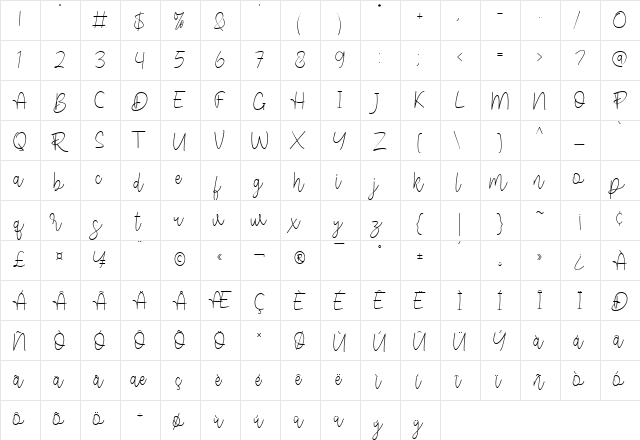
Veronica Regular
| Foundry | Rometheme Studio |
| Designer | Rometheme Studio |
Design Context for Veronica Typeface
Veronica takes a measured approach to typography — its balanced proportions and neutral character make it a reliable workhorse for both digital and print work.